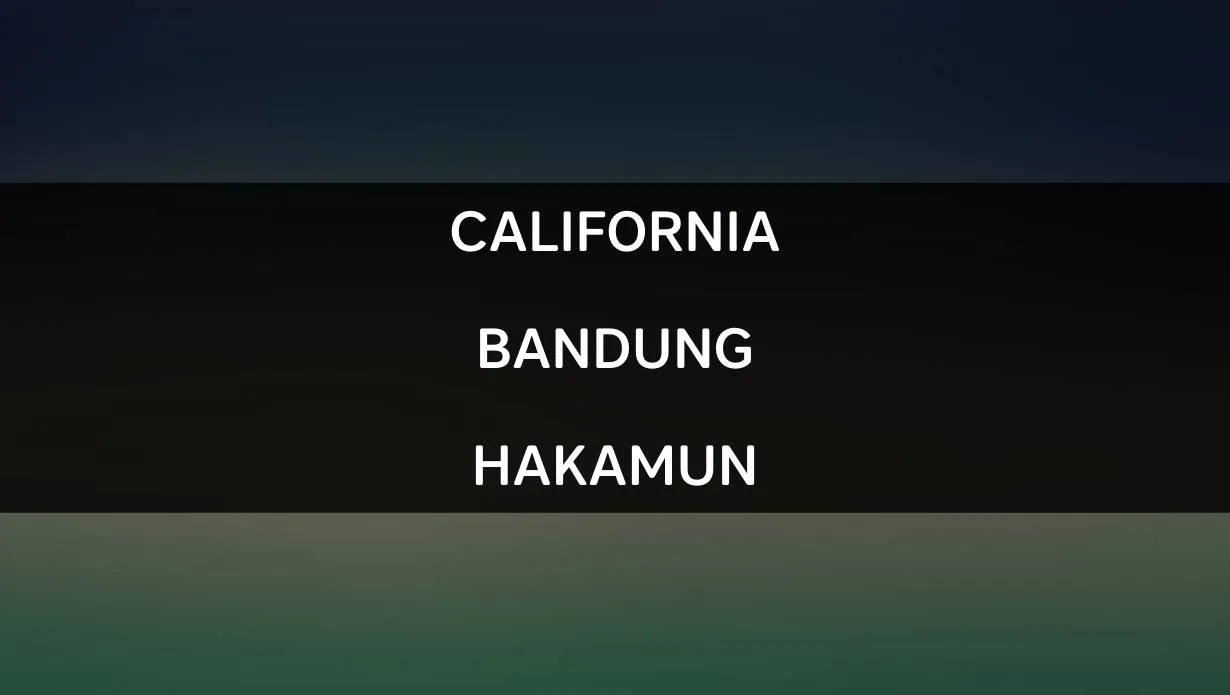
Core Sans Font is a typeface that was first introduced by Adobe Systems in 1994. The font is clean and simple, with sharp, geometric lines and a modern appearance. It has been widely used for web design and digital media due to its versatility, making it an ideal choice for both print and screen use.
It is much similar to the nunito sans font it has matching letterforms with this font that also belongs to the sans serif family. You may also get it’s similar from the google fonts store.
| Name | Core Sans Font |
| Designer | Tim Donaldson |
| Style | Sans Serif |